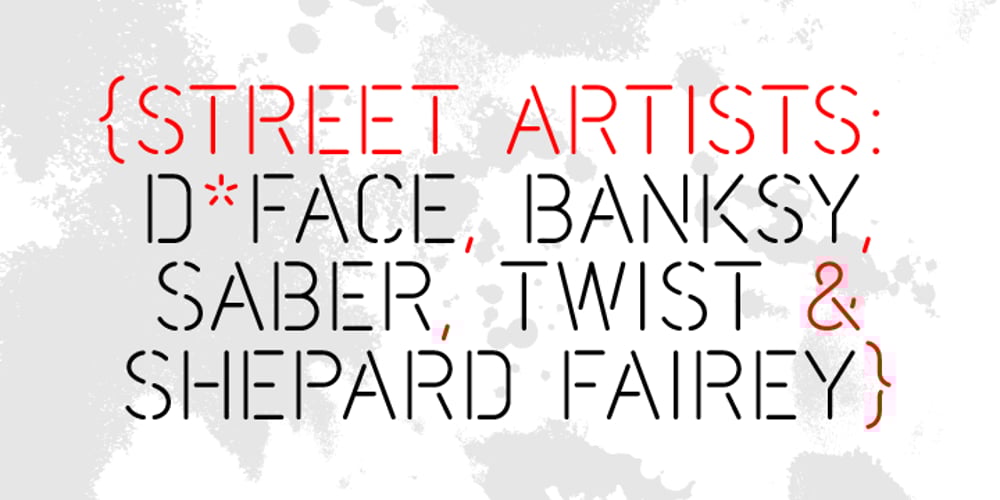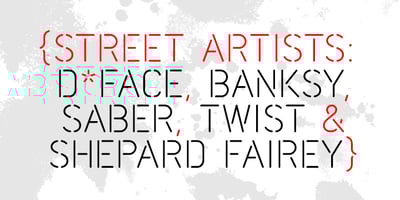
Scape Font Family was designed by Michael Jarboe and published by Reserves. Scape contains 3 styles and family package options. Scape is a precisely drawn, contemporary stencil face built from a single weight rounded end stroke. The fine, linear rounded forms create a subtle contrast to the raw utilitarian nature of the stenciled characters. Extremely versatile, Scape is highly legible due to it’s upright, consistently balanced sans letterforms. Stylistically, it exemplifies refinement and clarity with an distinct edge. Features include: Precision kerning Expanded ligature set Alternate characters (O, _, ®) Alternate zero Extended language support (Latin-1 and Latin Extended-A) *Requires an application with OpenType and/or Unicode support.